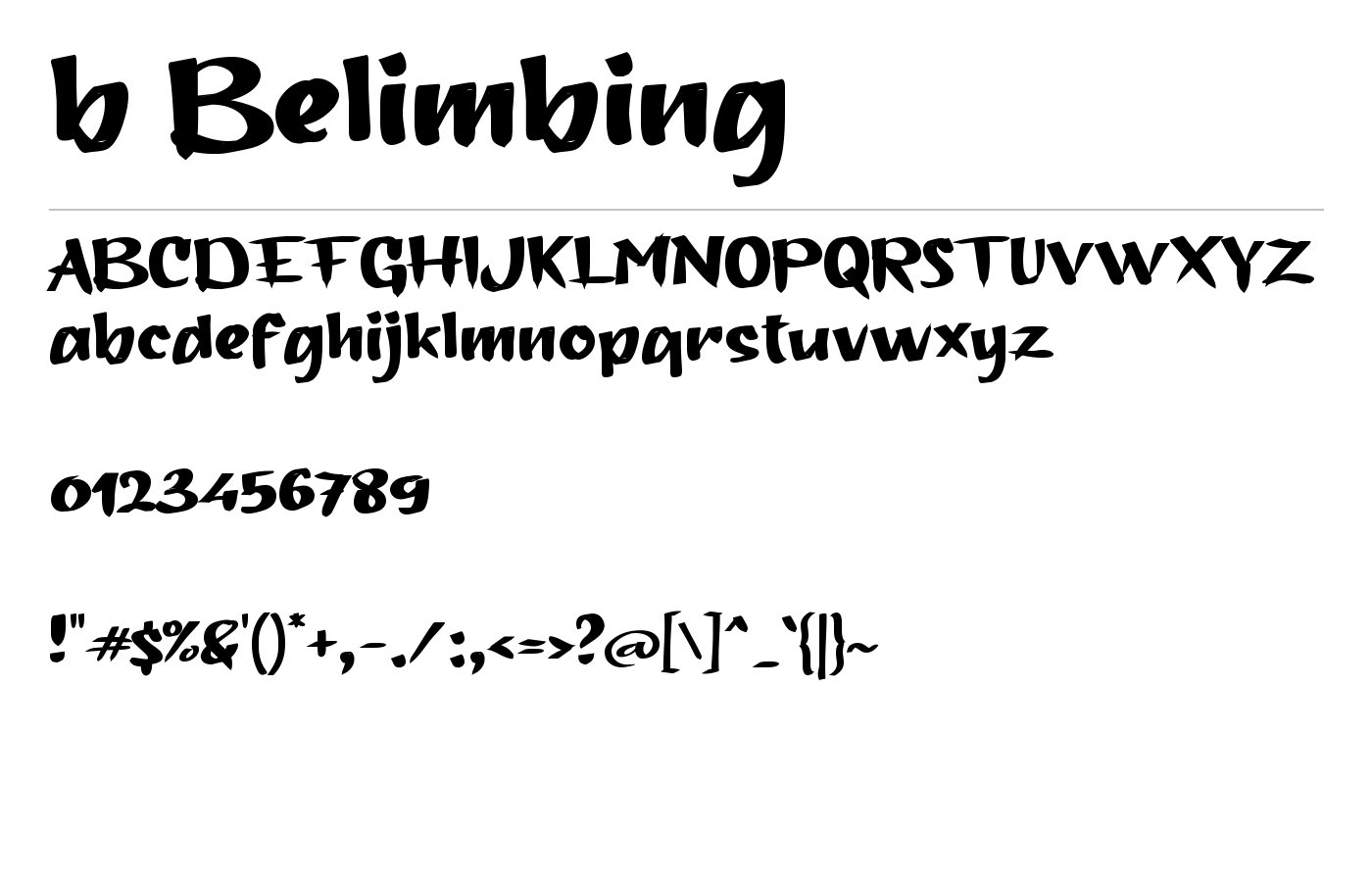
Belimbing is a quirky, casual handwritten font with bold, uneven strokes that give it a playful and energetic vibe. Its thick weight and irregular letterforms make it ideal for creative, informal designs such as posters, branding for fun products, or children's materials, where a friendly and approachable personality is desired. This font works best in larger sizes where its unique character can really shine and add a touch of charm and individuality.
b Belimbing Font
About b Belimbing Font